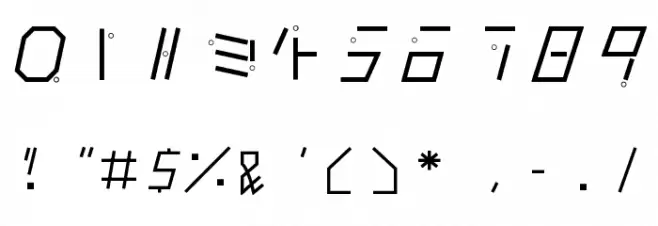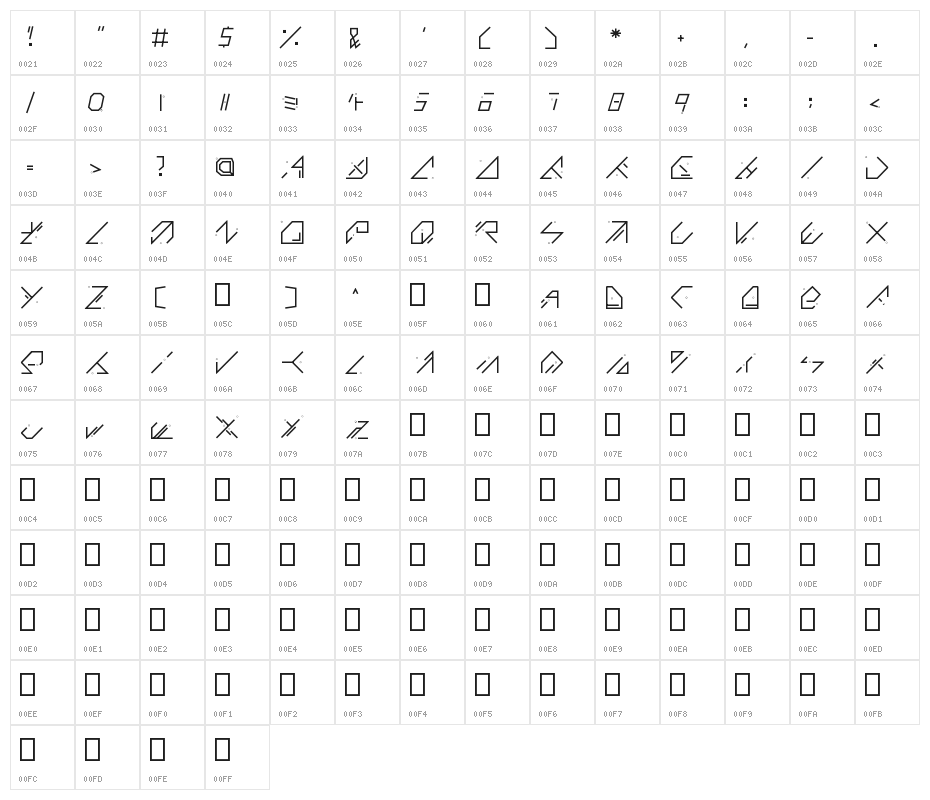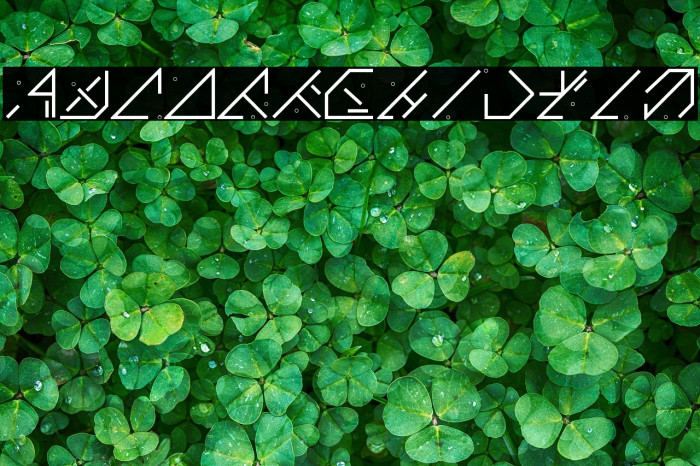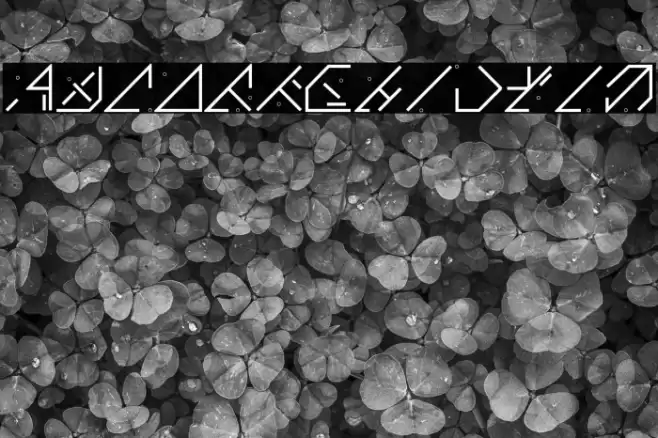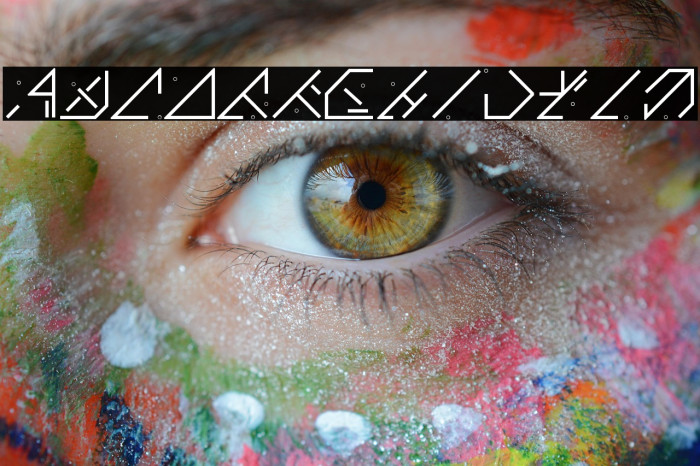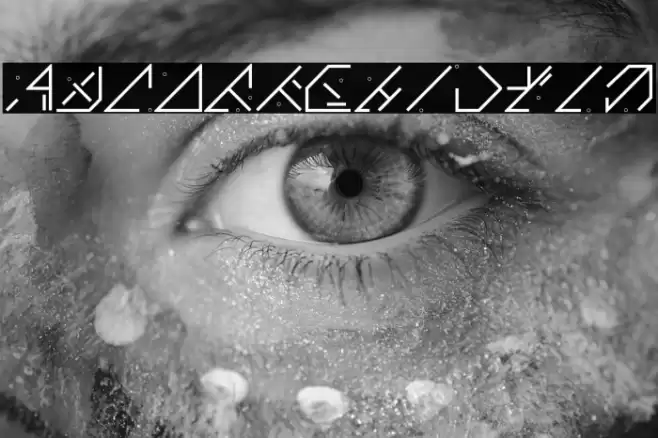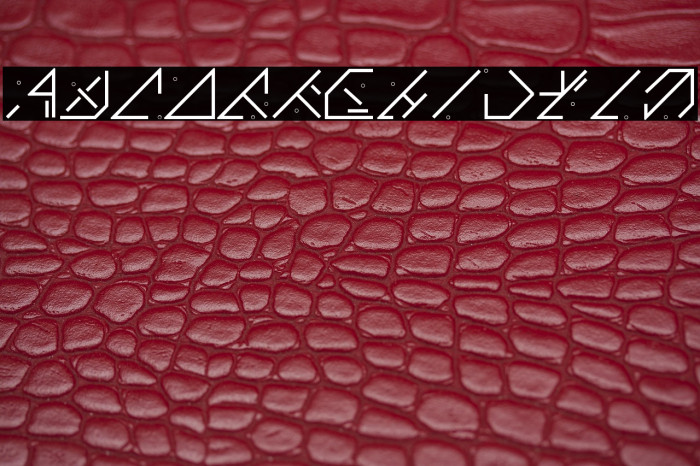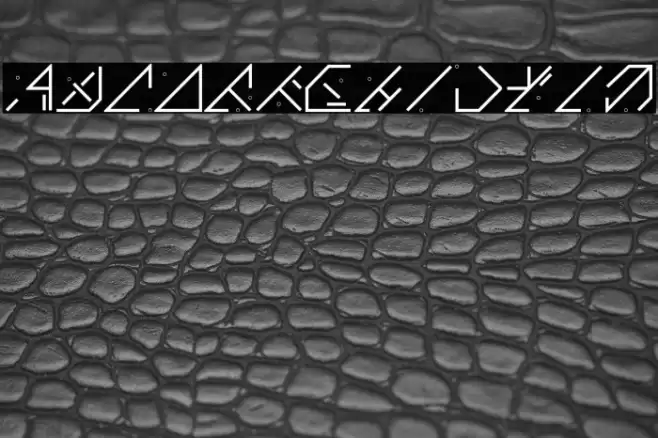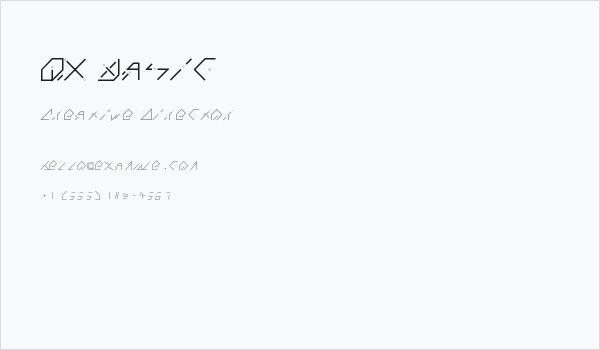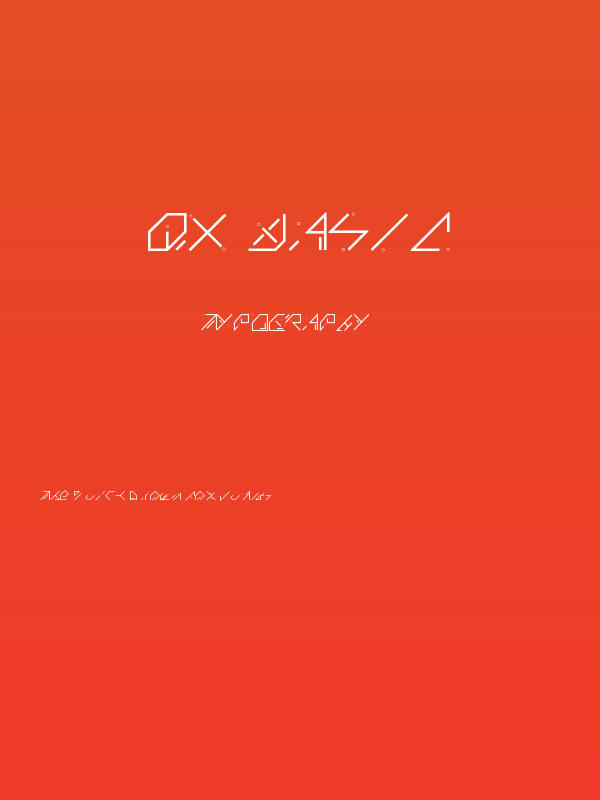
QX Basic Font
QX Basic Description
This font features a futuristic and geometric design, characterized by angular lines and sharp edges. Each character is constructed with a series of straight lines and angles, giving it a mechanical and digital appearance. The use of negative space and minimalistic dots adds a unique touch, enhancing its modern and tech-inspired aesthetic. The font maintains a consistent stroke width throughout, contributing to its uniform and structured look. Its distinctive style makes it suitable for projects that require a contemporary and innovative feel.
| Proposed Projects | Ideal for tech branding, sci-fi posters, digital art, and modern web design. |